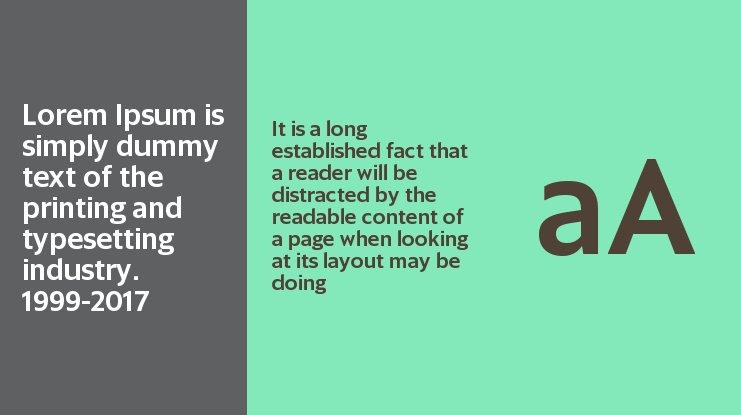
Sanomat Sans Font Family
Sanomat Sans Font
This is a condensed geometric sans serif font, originally designed for display usage in Helsingin Sanomat, Finland’s most widely-read newspaper. The sharp points on diagonal characters reference the iconic architectural lettering in Helsinki’s main square, close to the newspaper’s offices. To temper the monotonous texture caused by the many repeating letters in Finnish words, the bowls have a subtle asymmetry, giving the face a warm tone more typical of a humanist sans. The nine weights of the Sanomat Sans family grew out of the need to express many different personalities in the newspaper’s various offerings: from punchy bold weights, including a Stencil Black, for the younger readership of the weekly magazine Nyt to sophisticated thin weights for the more literary flavor of the monthly Kuukausiliite. In the process of satisfying the needs of all of these different design teams, the family evolved to include exhaustive set of alternates, making it something of a chameleon.